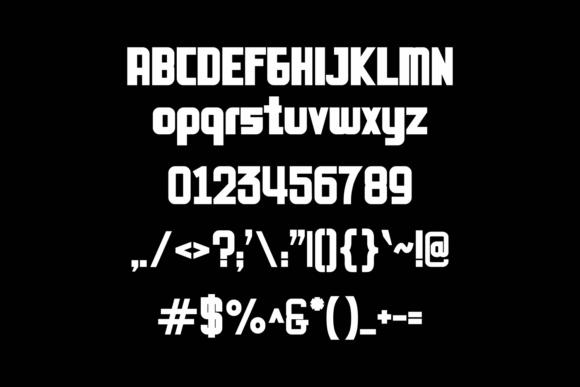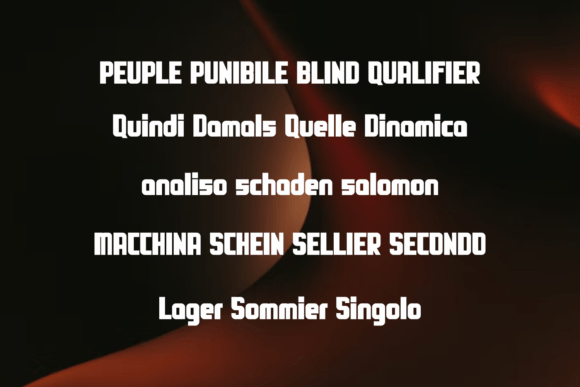
Introduction to Ordian Font
Remember that moment when you’re working on a creative project, and you’re stuck on finding the perfect font to elevate your design? It’s a frustrating feeling, but it’s also a great opportunity to discover something new and exciting. For designers, a high-quality font can make all the difference in bringing a concept to life. And that’s exactly what the Ordian Font offers – a modern sans serif font that’s perfect for any creative endeavor.
With its clean and minimalist design, the Ordian Font is an invaluable resource for designers looking to add a touch of sophistication to their work. Whether you’re working on a free download project or a commercial design, this font is sure to impress. And the best part? It’s available for free download, making it an accessible design resource for creatives of all levels.
From logos to brochures, the Ordian Font has the potential to take your design to the next level. Its transparent background and modern aesthetic make it perfect for a wide range of applications, from digital to print. So why settle for an ordinary font when you can have the extraordinary Ordian Font?
Key Features of Ordian Font
- Designed with a modern aesthetic, featuring a clean and minimalist design.
Honest Review: Ordian Font
As a designer, I’m always on the lookout for high-quality design resources to elevate my creative projects. Recently, I stumbled upon the Ordian Font, and I’m excited to share my honest review with you.
What works well: ✨ The Ordian Font offers a beautiful, modern design that’s perfect for a variety of creative projects. The font is highly customizable, allowing you to adjust the spacing and color to suit your design needs. I also appreciate the transparent background, which makes it easy to layer the font over images or other design elements.
- Customizable spacing and color
However, there are a few limitations to consider: ⚠️ The Ordian Font may not be suitable for projects that require a more traditional or formal font style. Additionally, the font may not be compatible with older software or operating systems.
Ordian Font is commonly used for logos, infographics, presentations, and documents. Its transparent background makes it easy to combine with other design elements, and its high-quality design makes it perfect for creative projects.